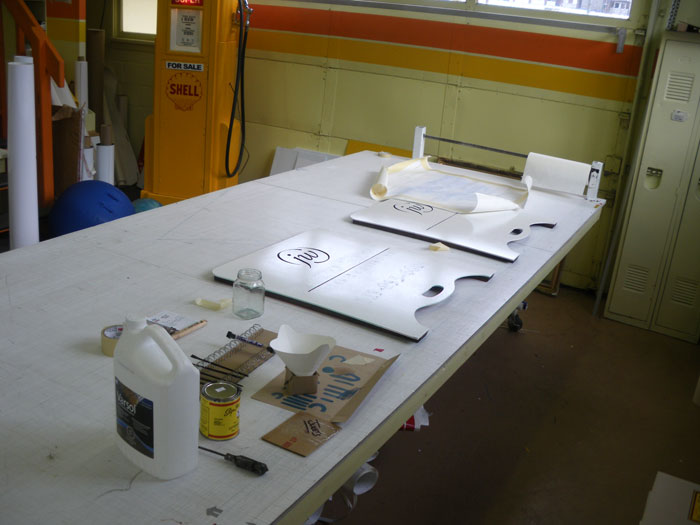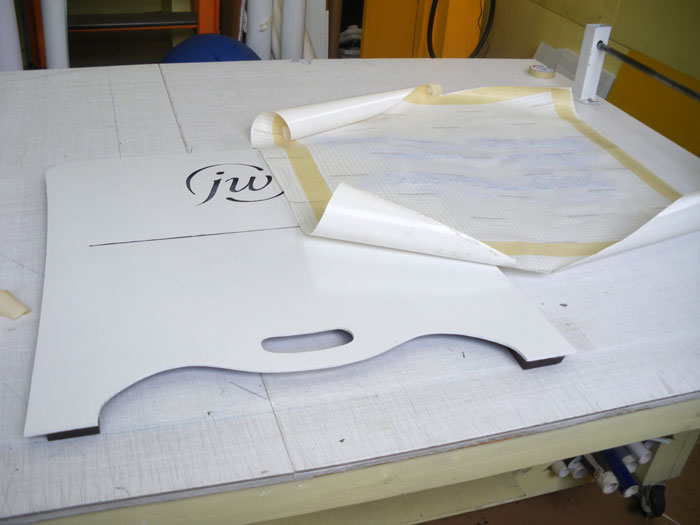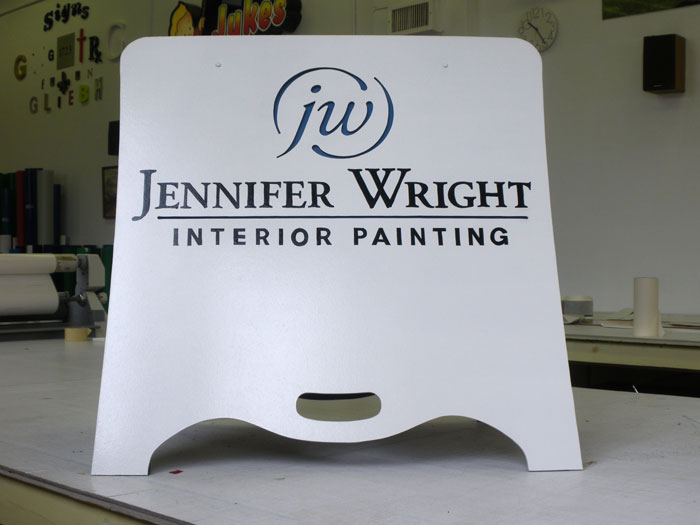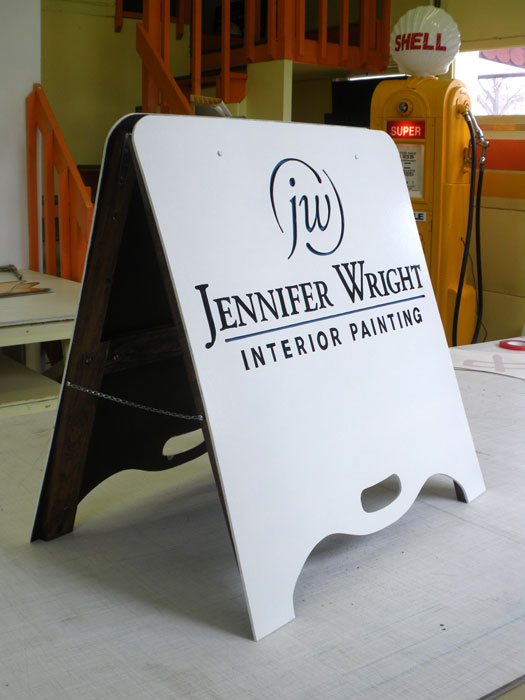
Christmas Gift Sign
I took the advice of David Slade from my previous post and made my first hand lettered sign as a Christmas gift for my aunt and her painting business. Here were the results. Any comments and suggestions welcome.
I had designed the logo previously for a business card. The panel shapes, handles, icon and line were cut out of the Masonite board with a jig-saw. I framed the Masonite panels with 1"x3" pine with a routed a track to allow a panel to slide in and be held behind the cut out icon. My aunt is notorious for changing her mind so now she can paint the panel whatever colour she feels like that day, slide it into the sign and change the colour of her logo. I stained the backs of the panels and rolled the faces white. A pounce pattern was used to mark the layout of all the black lettering.
Great idea for the changeable logo color. It adds some dimension too.